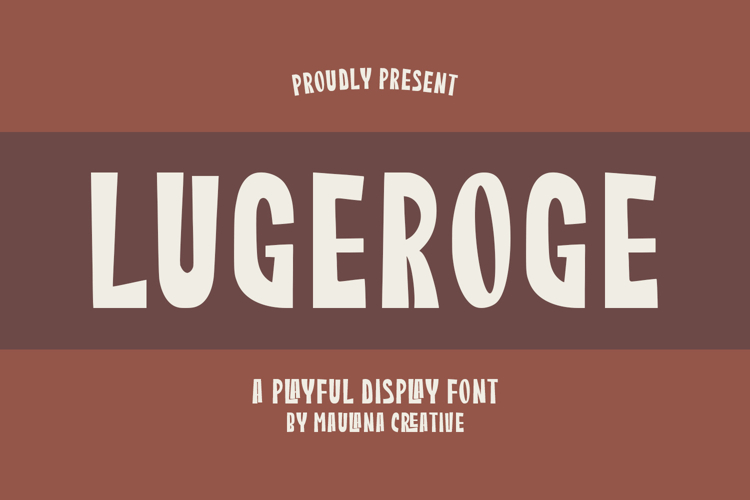
Lugeroge is a playful display font with a bold and quirky personality, perfect for bringing fun and creativity to your projects. Its irregular shapes and unique letterforms make it stand out, giving any design a lively and cheerful vibe. This font is ideal for children’s books, posters, branding, packaging, social media posts, and any project that needs a touch of friendliness and joy.
With its handcrafted look, Lugeroge combines modern charm with a retro feel, making it versatile for both casual and professional designs. Whether you’re creating educational materials, playful quotes, or eye-catching logos, this font will add warmth and originality to your work.